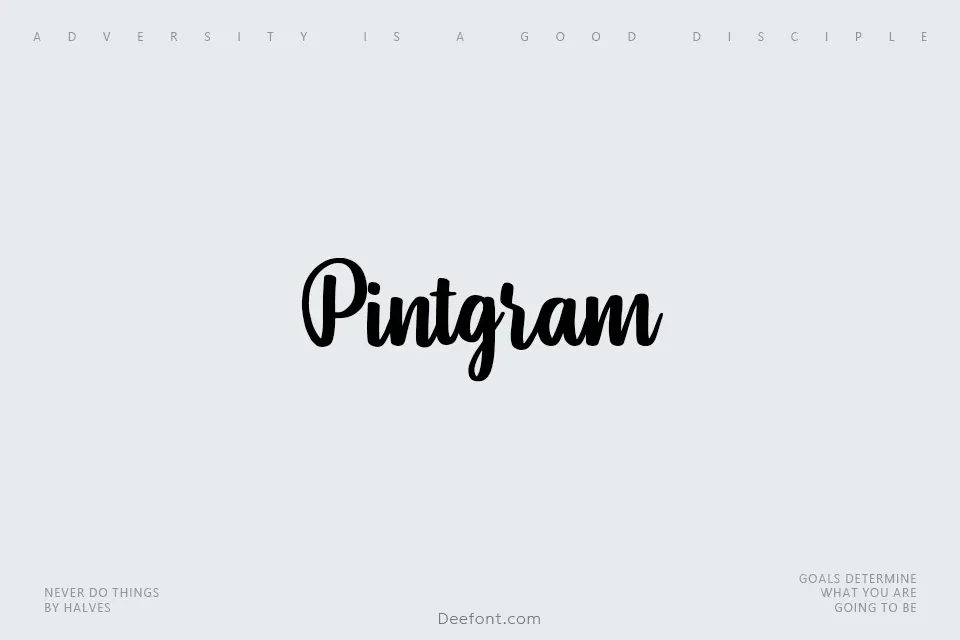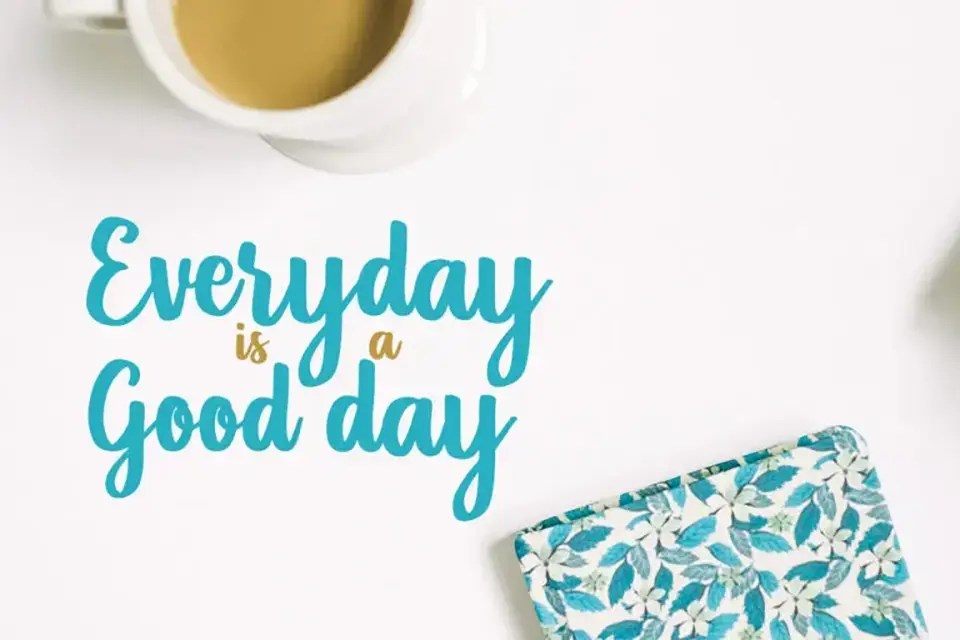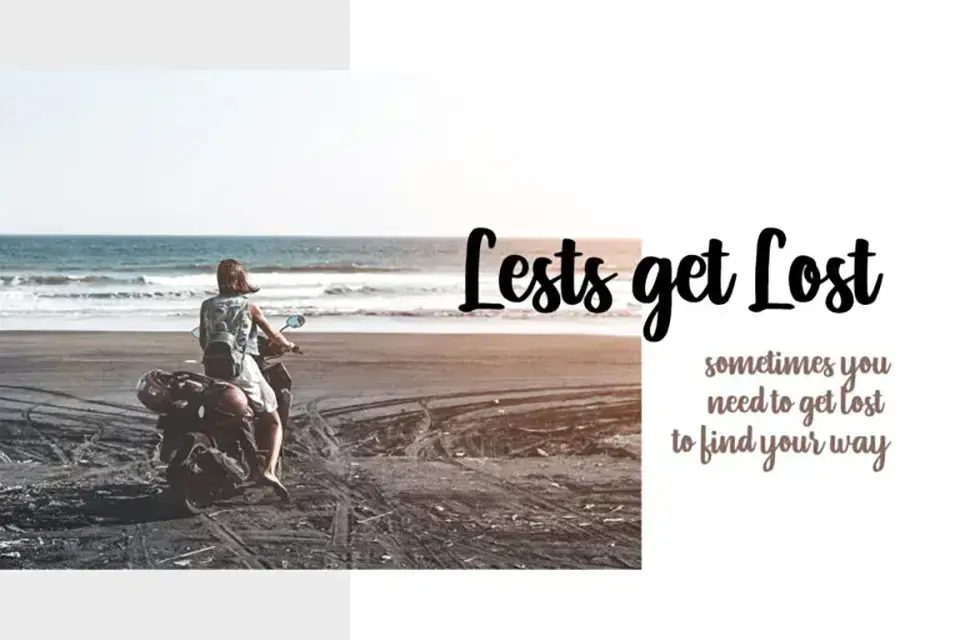
Pintgram Font
Pintgram Font is a casual handwritten script typeface that captures the natural flow and warmth of authentic brush calligraphy. Featuring smooth, connected letterforms with consistent stroke weights and playful curves, this font brings a friendly and approachable feel to any project. Its organic character makes it ideal for wedding invitations, party designs, branding materials, logos, packaging, posters, social media graphics, and creative titles where a personal, handcrafted touch is desired.